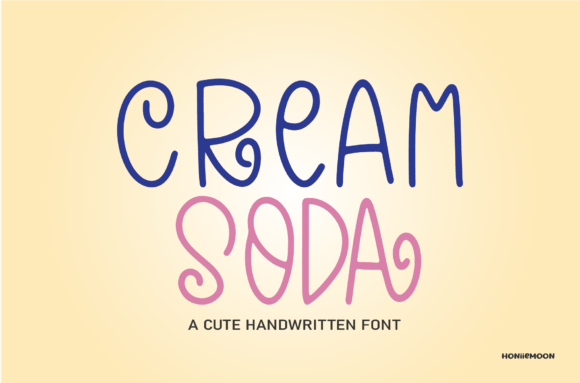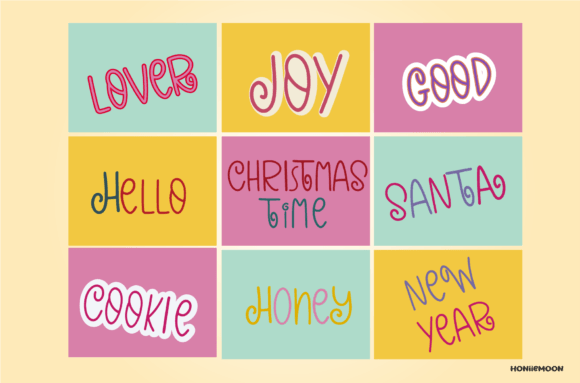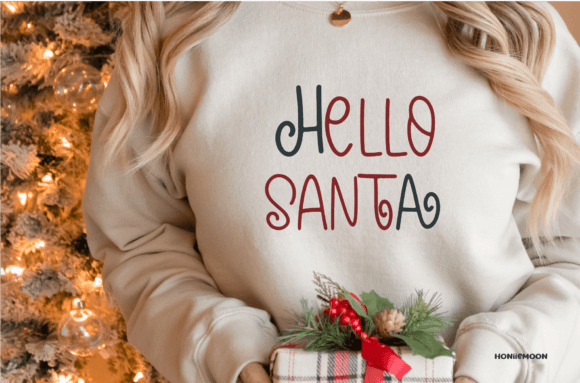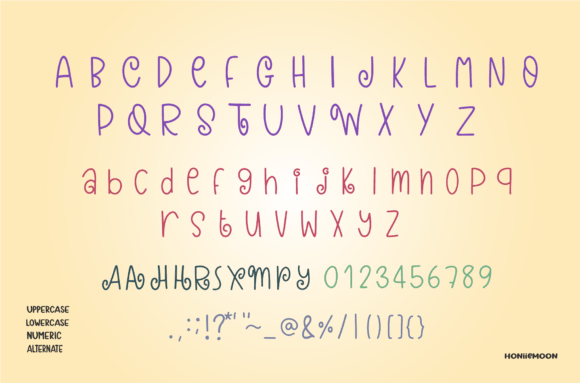
Cream Soda Font
About Cream Soda Font
The Cream Soda Font download is a fun and quirky handwritten typeface that brings playful energy to any project. With its cute curves and jolly character, this font is perfect for those looking to add a whimsical and lighthearted feel to their designs. Whether you’re creating a greeting card, crafting for kids, or branding a cheerful product, Cream Soda will help you do it with style and joy.
A Jolly Typeface with Personality
Designed to make your creative ideas stand out, the Cream Soda Font download delivers a handcrafted look that’s both inviting and unique. Each letter has a casual charm that feels friendly and sincere. The flowing style maintains high legibility, making it ideal for both headlines and smaller text.
Use it confidently for:
• Kids’ books and activity sheets
• Greeting cards and birthday invitations
• Fun product labels and packaging
• Social media graphics and posts
• DIY crafts and digital scrapbooking
Its cheerful nature will instantly uplift any visual project.
Why You’ll Love It
Key features:
• Playful handwritten style
• Clean, smooth letterforms with a whimsical touch
• Perfect for fun, casual, or kid-oriented designs
From logos to gift tags, this font adapts beautifully to many creative uses.
Let Your Imagination Run Wild
There are no limits when using the Cream Soda Font download. Its friendly charm makes it a perfect match for designs that need to feel fun, approachable, and full of life. You’ll find yourself coming back to it again and again for everything from holiday cards to product packaging.
Add this delightful handwritten font to your collection and bring your most playful ideas to life!